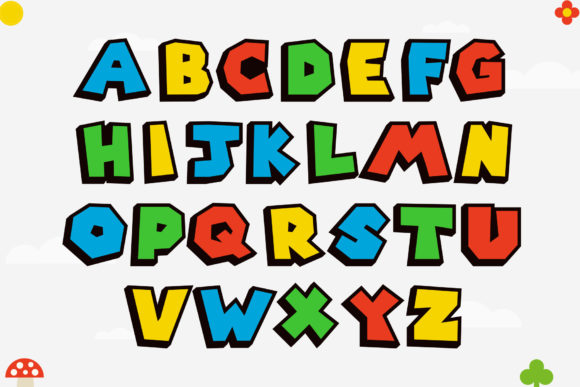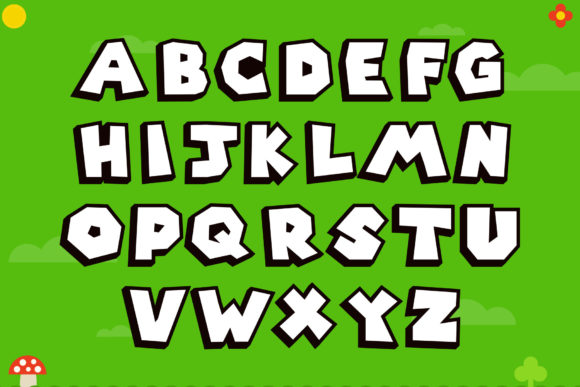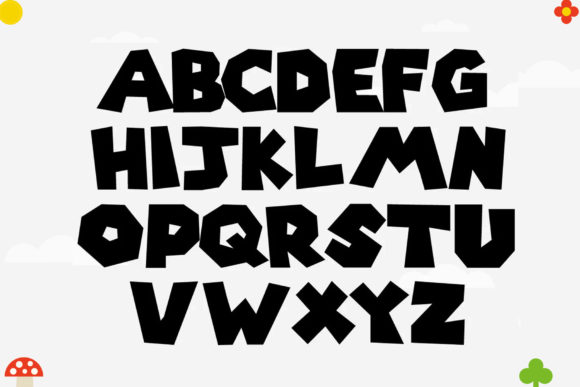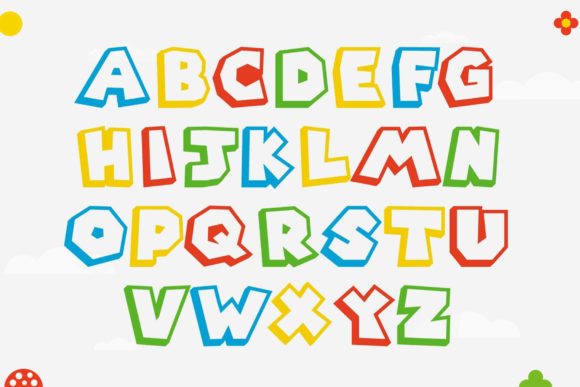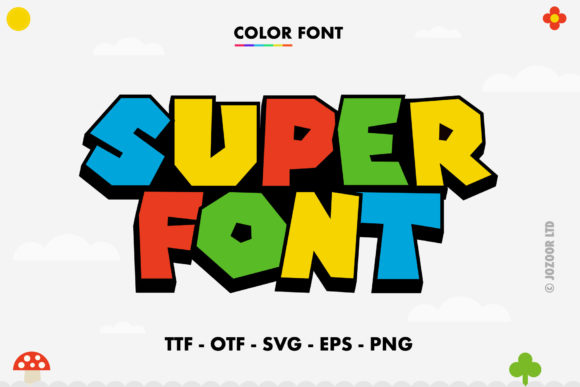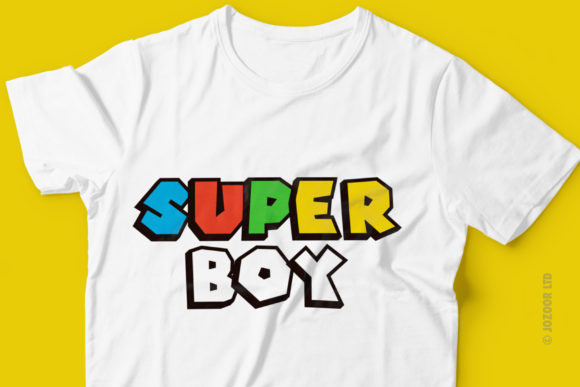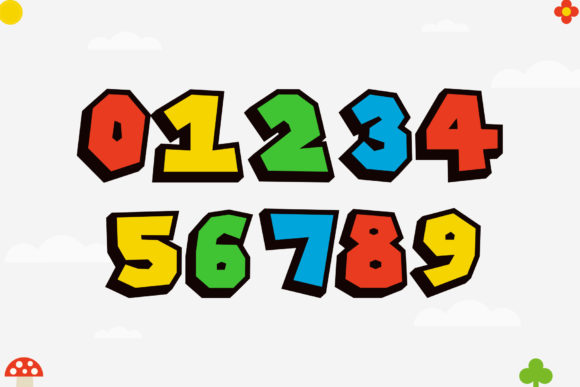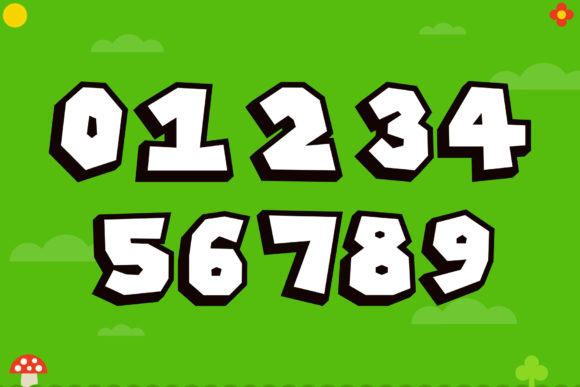
Super Font
About Super Font
Super is an awesome and bold OpenType-SVG color font that brings a playful and vibrant touch to your designs. With its thick lettering and fun style, Super font is perfect for adding a bold and energetic element to your favorite creations.
The font is PUA encoded, which means you can easily access all the glyphs and swashes without any hassle. This allows you to unleash your creativity and explore various design possibilities with Super font.
Whether you’re working on logos, branding, posters, social media graphics, or any other design project, Super font will make a statement and leave a lasting impression. Its thick letterforms and colorful appearance add a sense of dynamism and excitement to your visuals.
With Super font, your favorite creations will truly stand out and captivate viewers. The bold and fun nature of the font lends itself well to projects that require a lively and energetic aesthetic. Let Super font be the superhero of your designs and be amazed by the outcome it generates.
Embrace the boldness and playfulness of Super font and watch as your designs come to life with a burst of excitement and creativity.